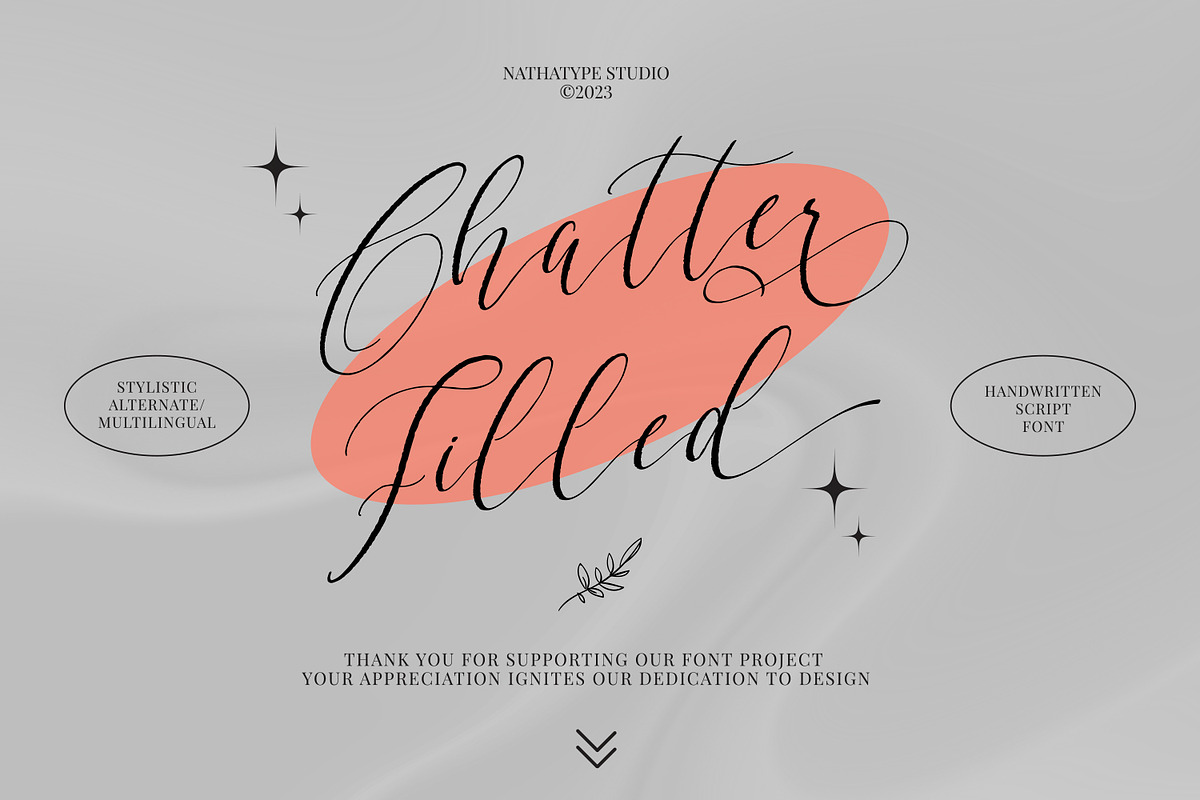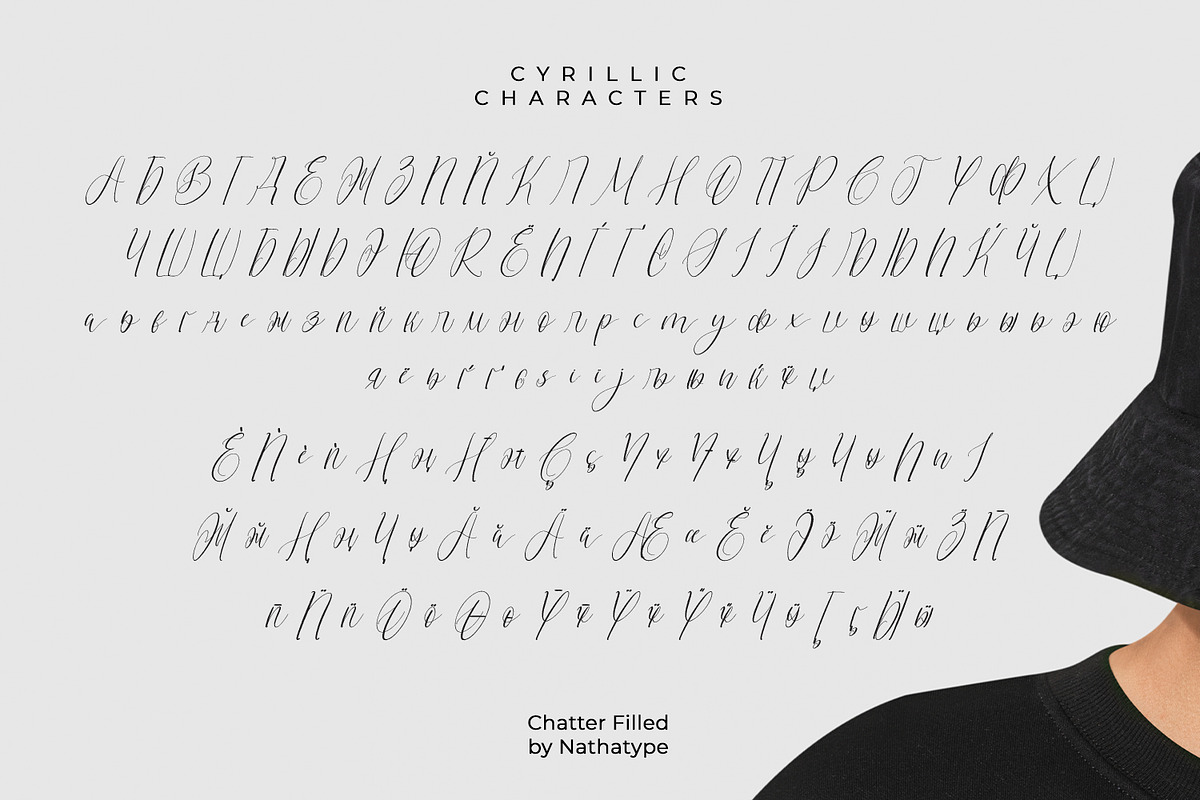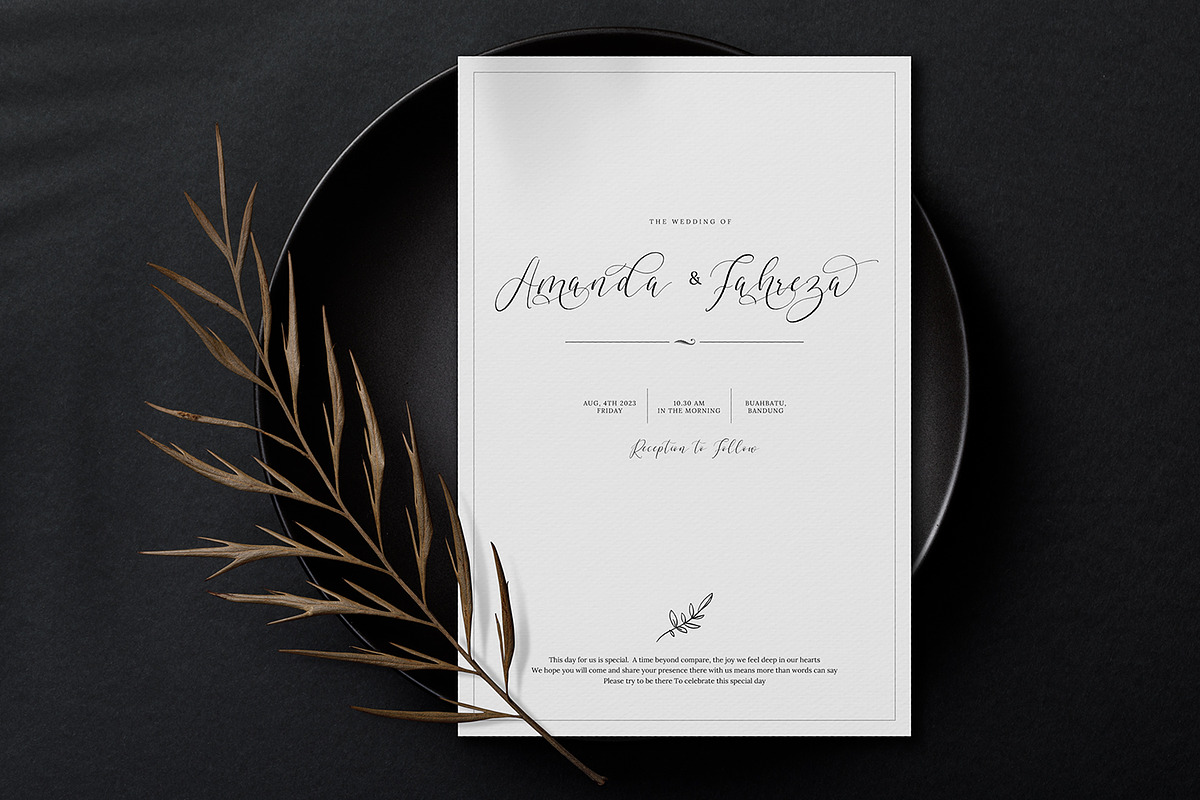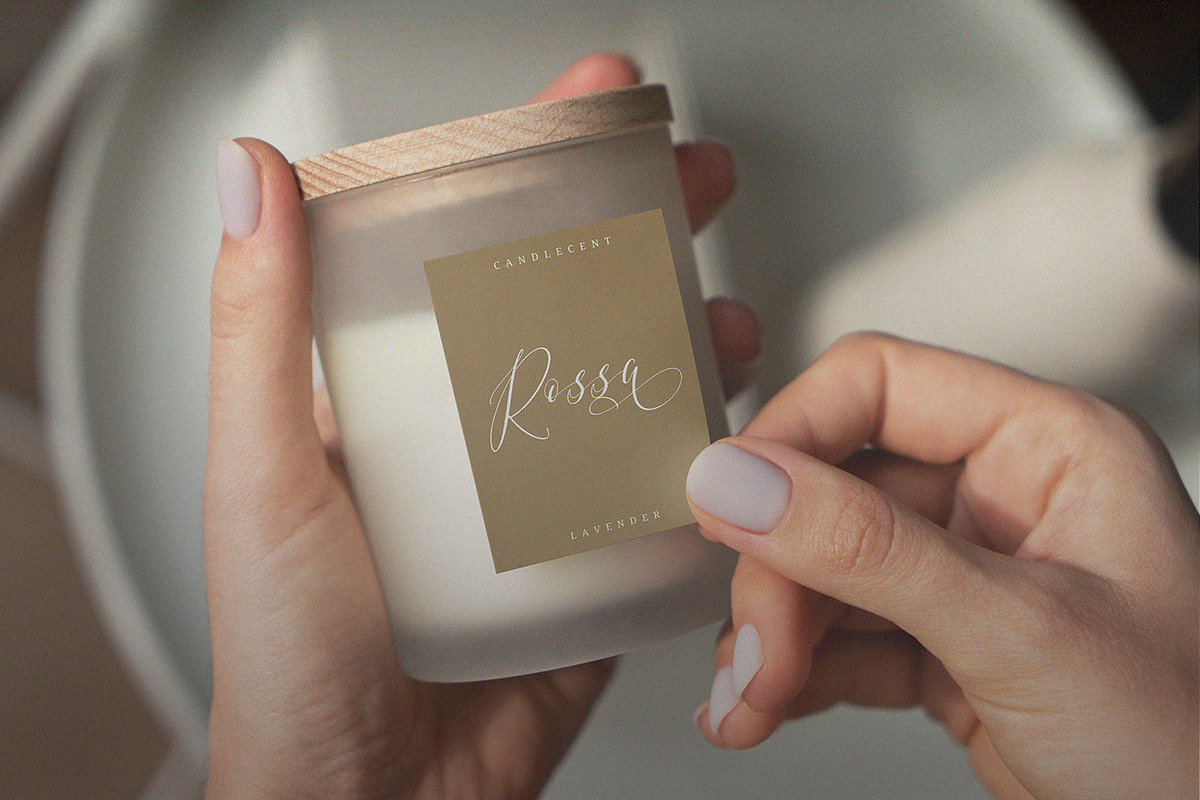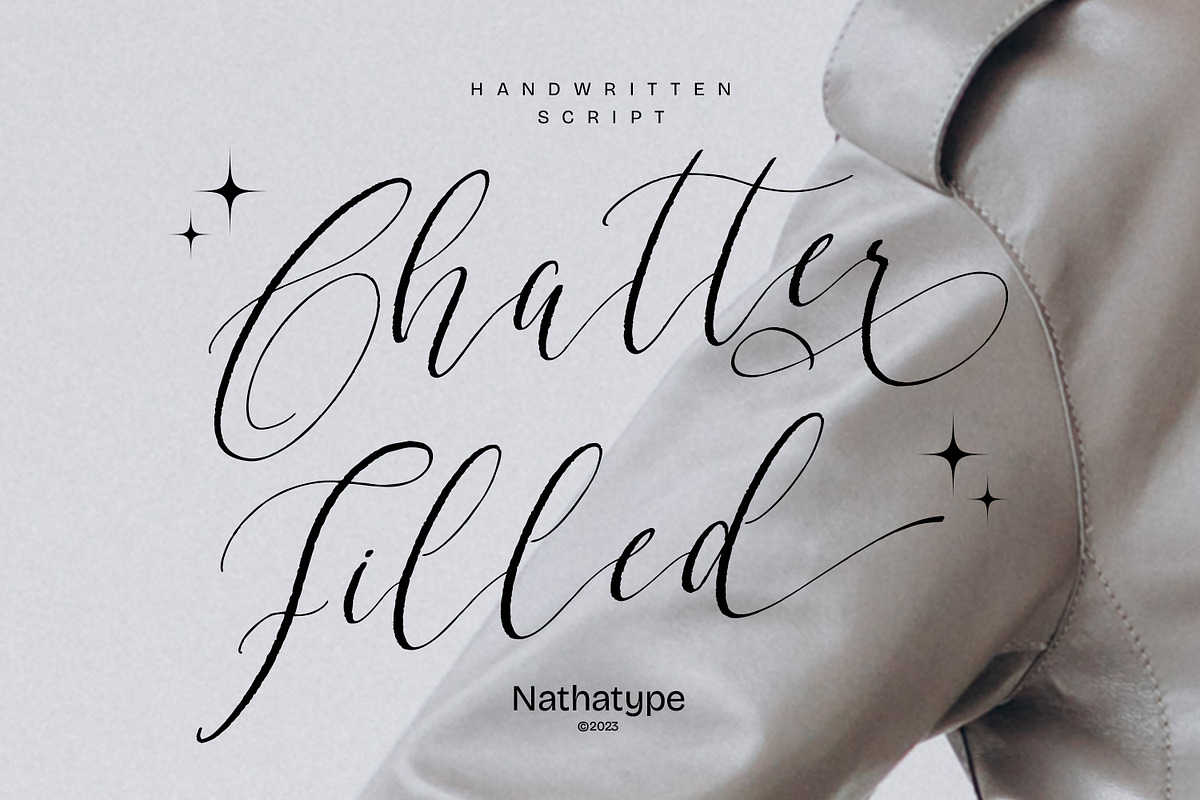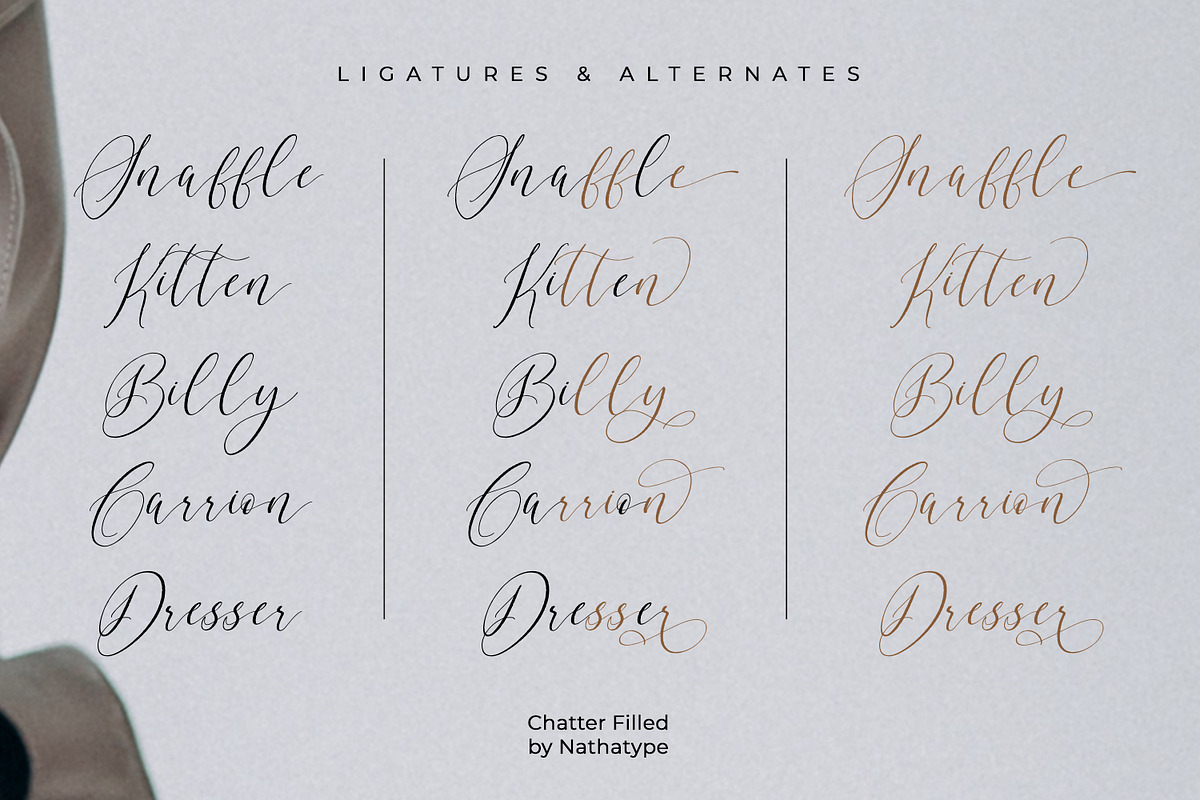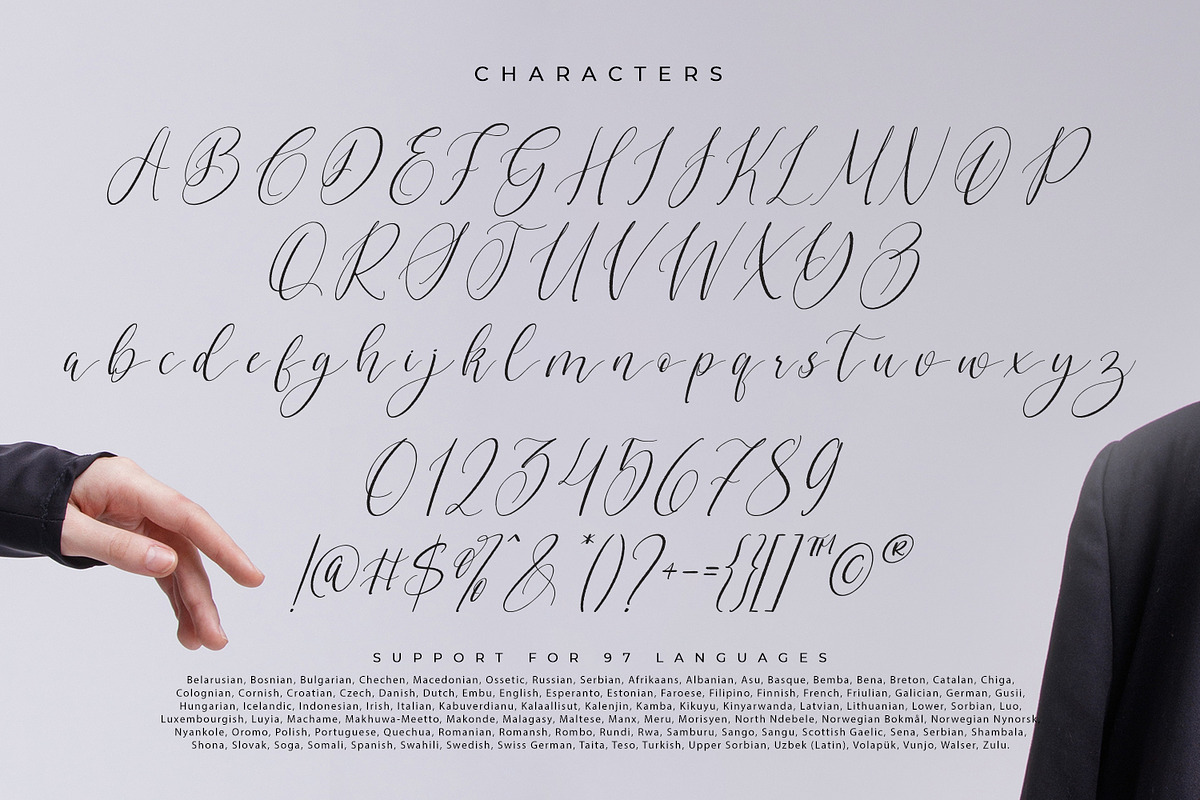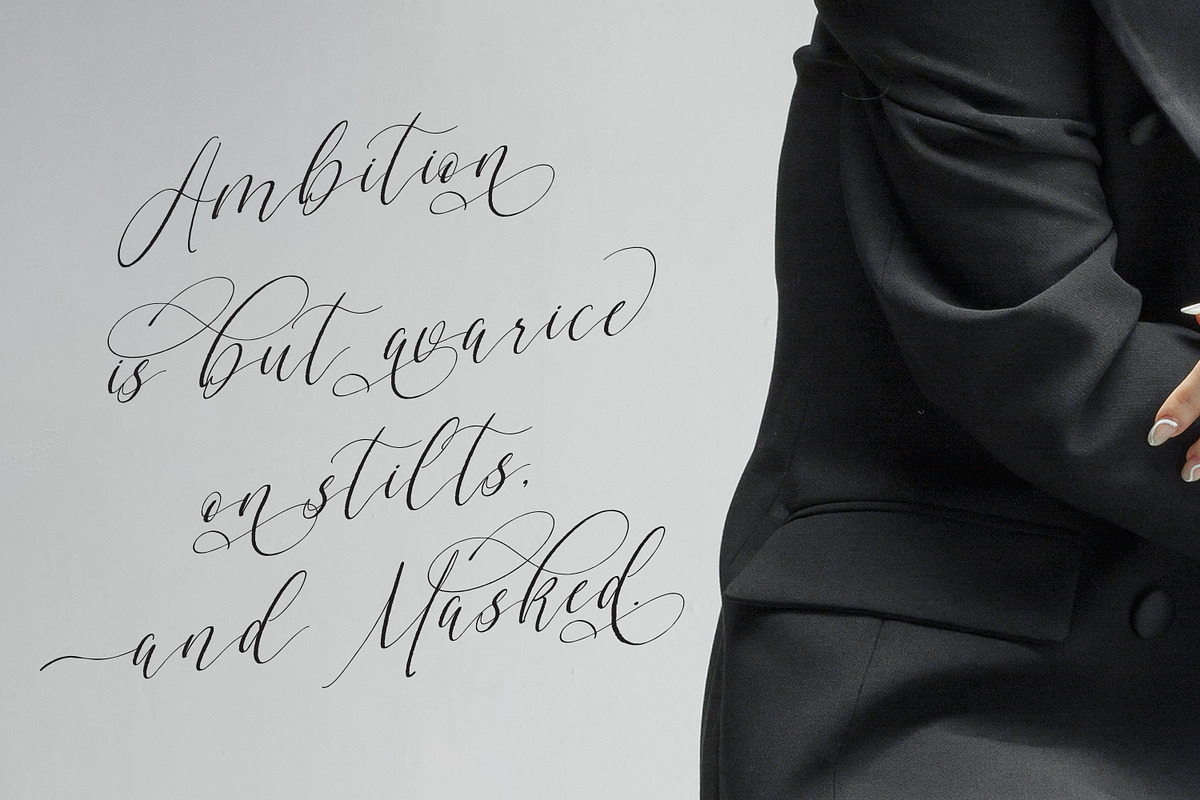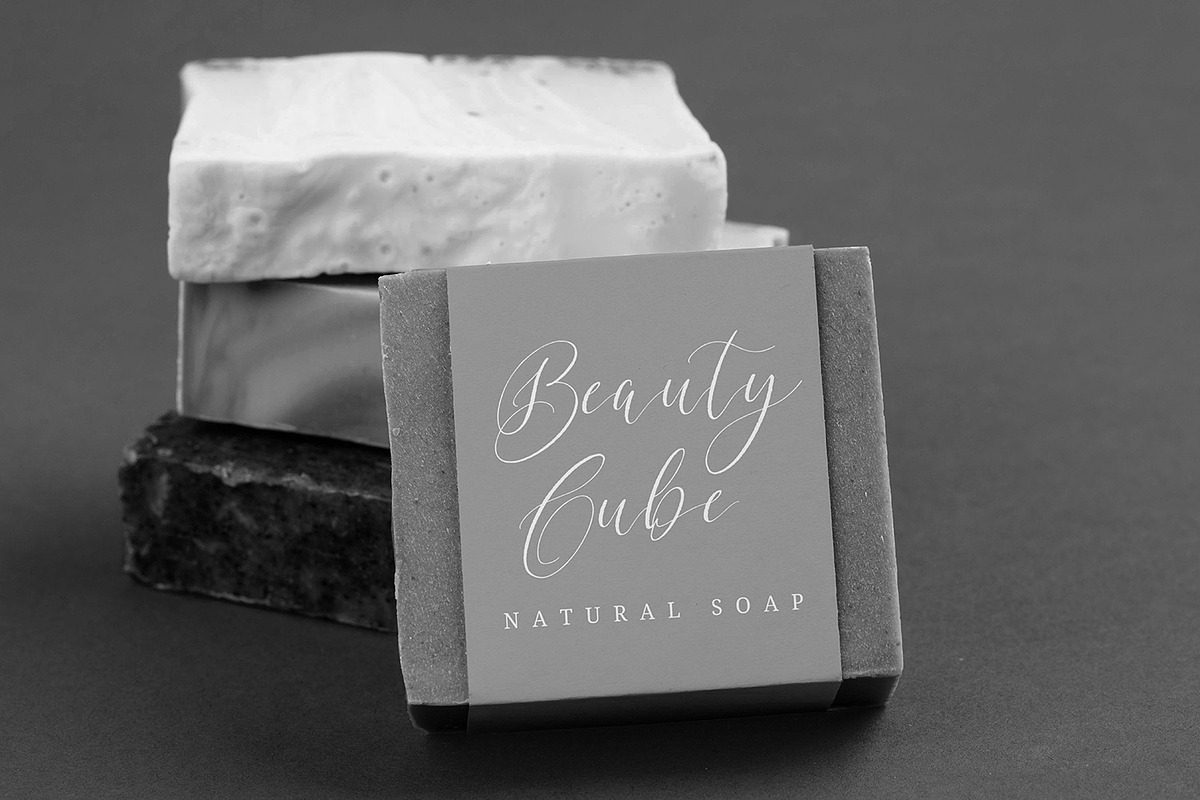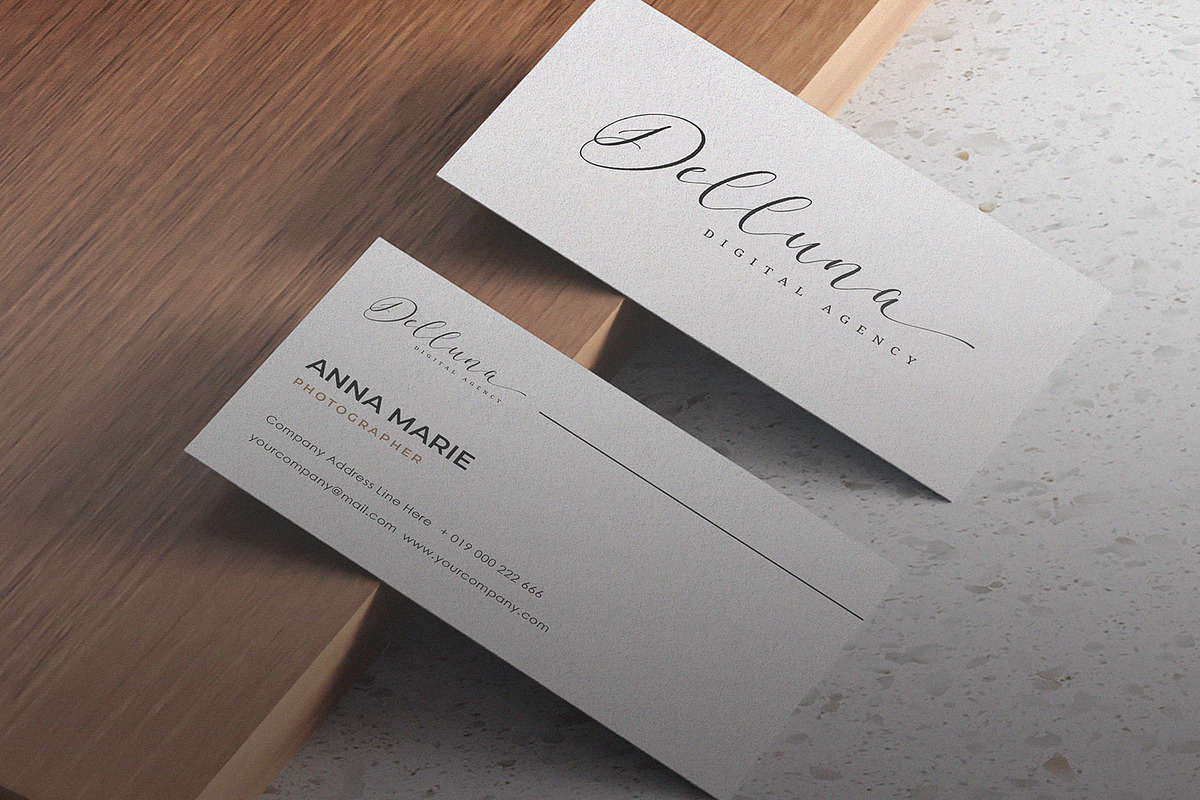
Chatter Filled
Chatter Filled is a captivating script font that beautifully captures the essence of cursive handwriting. This typeface exudes a sense of liveliness and creativity. Each letter in Chatter Filled is meticulously crafted with varying heights, creating a playful contrast that adds a dynamic and eye-catching quality to the font. The irregular proportions of the letters enhance the font's overall visual appeal, giving it an artisanal and handcrafted feel. With its mix of tall and short letters, Chatter Filled brings a sense of movement and spontaneity to the text. The carefully balanced spacing ensures readability while preserving the authentic feel of cursive handwriting. But for the best legibility use this font in the bigger text sizes. Enjoy the available features here.
- Stylistic Sets
Chatter Filled fits in headlines, logos, posters, flyers, invitations, name cards, branding materials, print media, editorial layouts, and many more. Find out more ways to use this font by taking a look at the font preview.